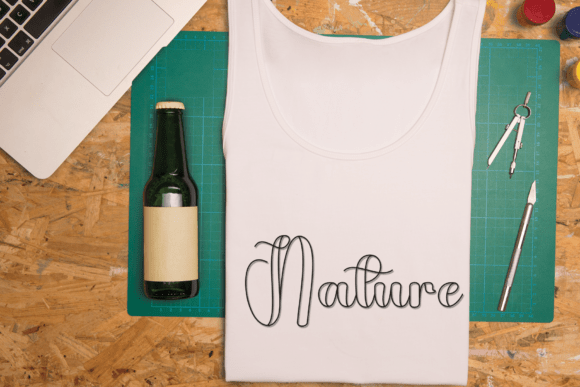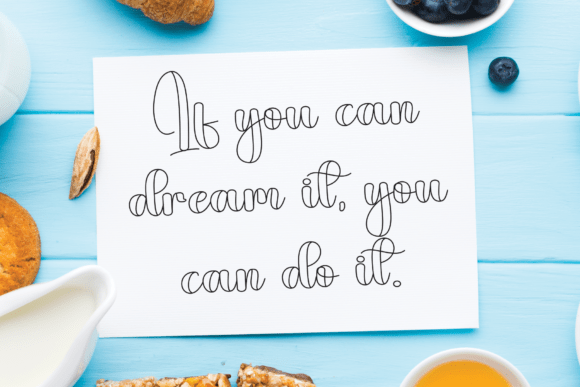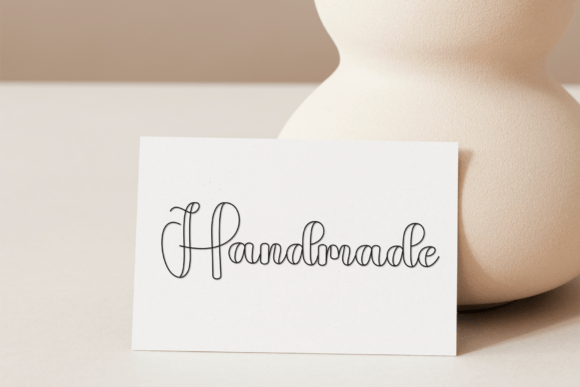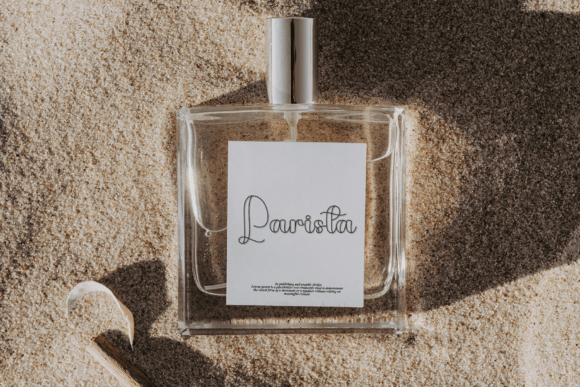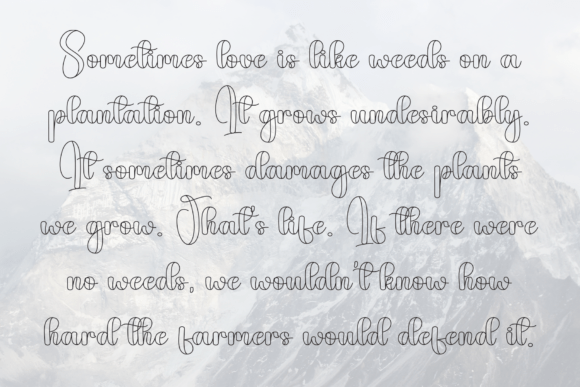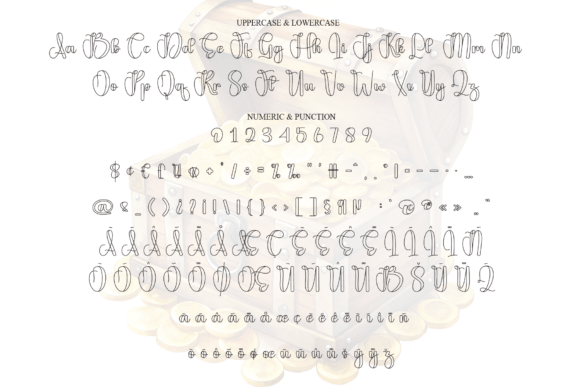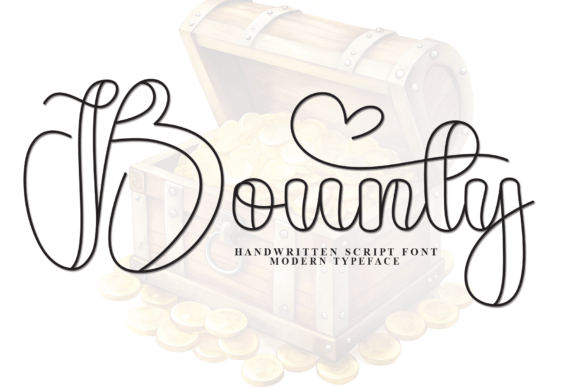
The Bounty Font: A Stylish Handwritten Script to Elevate Your Designs
Have you ever been in the middle of a design project, and suddenly, you’re stuck on finding the perfect font? I recall working on a wedding invitation project, searching for a font that would capture the elegance and playfulness of the couple’s personalities. That’s when I stumbled upon the Bounty font, and it instantly became my go-to choice. In this article, we’ll dive into the world of Bounty, exploring its features, uses, and alternatives.
A Personal Review of Bounty Font
As a designer, I’m always on the lookout for fonts that can bring a unique touch to my projects. Here’s what I love about Bounty:
- ✨ Elegant and playful strokes that add a personal charm to any design
- ✅ Flowing curves and natural rhythm that make it perfect for invitations, branding, and social media
- 💫 Warmth and sophistication that elevate the overall aesthetic of a project
However, no font is perfect, and Bounty has a few quirks:
- ⚠️ Limited use in very formal or traditional designs, as it may come across as too playful
- 🤔 May not be the best choice for very long texts, as it can be a bit ornate
The Story Behind Bounty Font
Bounty was designed with the intention of capturing the elegance and playfulness of handwritten scripts. Its creator aimed to craft a font that would be both sophisticated and charming, perfect for creative projects and designs. While the true story behind Bounty remains a mystery, its design inspiration is evident in its flowing curves and natural rhythm.
| What is Bounty font best used for? | Bounty font is ideal for invitations, branding, social media, and creative projects that require a personal and charming touch. |
| Is Bounty font suitable for long texts? | While Bounty is a beautiful font, it may not be the best choice for very long texts, as it can be a bit ornate. |